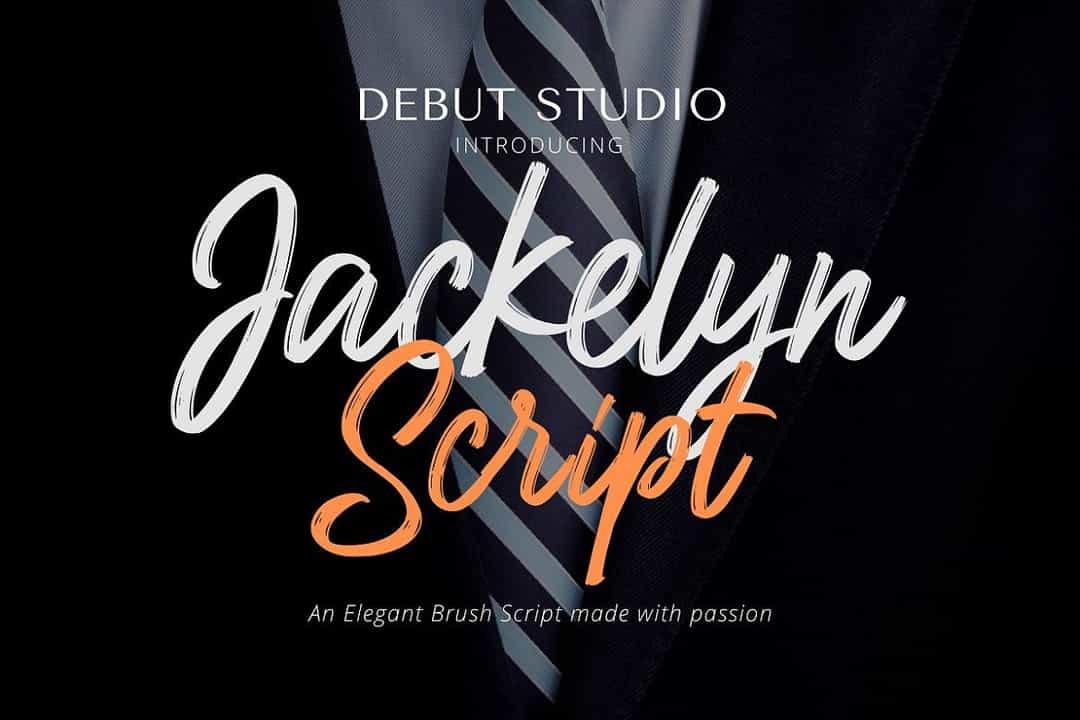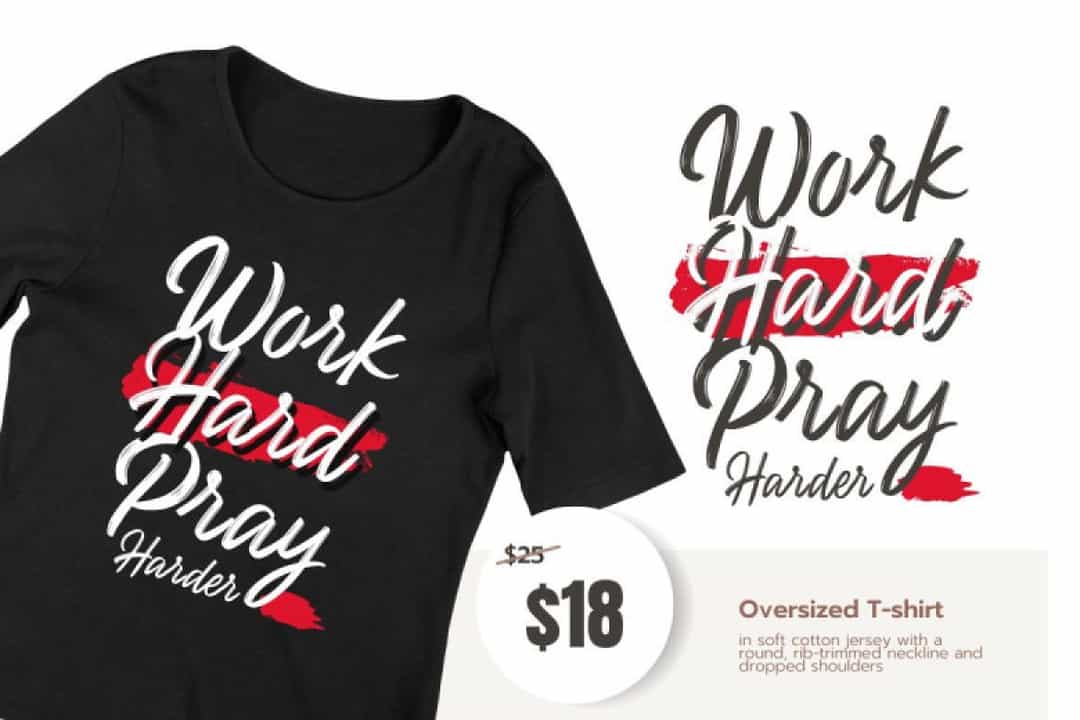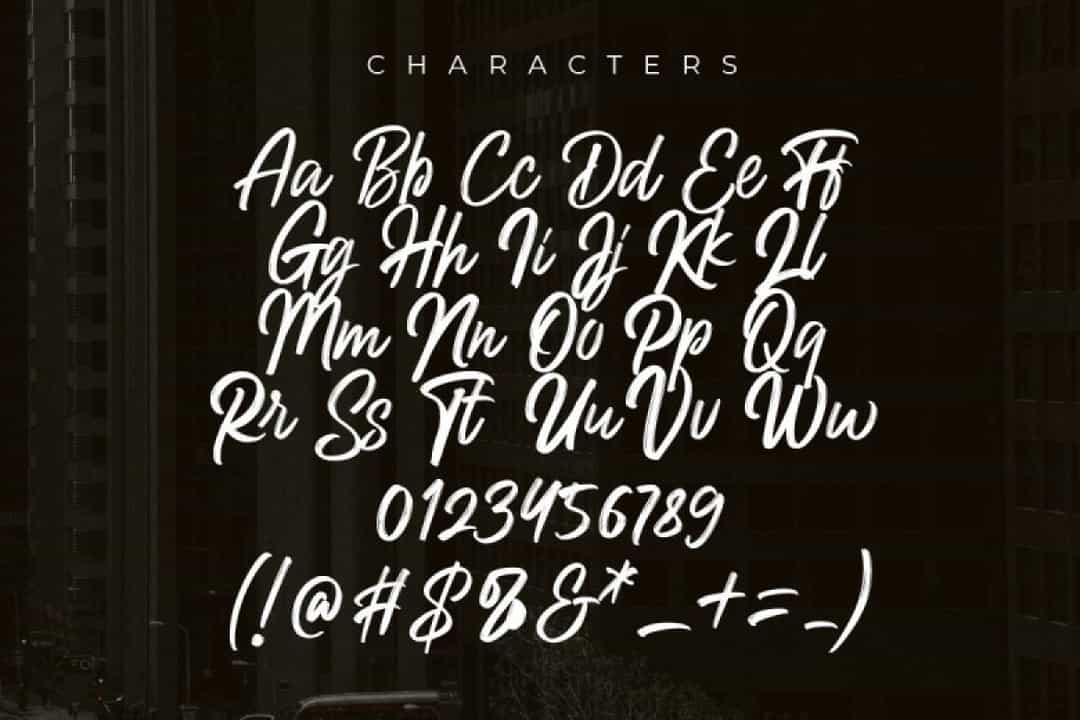
Discover Jackelyn Script Font, part of the Brush collection—a versatile and unique font perfect for adding a personal touch to your projects. Download it for free and enjoy crafting designs with style, from invitations to social media posts. This font is available exclusively for personal use, giving you the freedom to create without limits. Unlock your creativity with Jackelyn Script Font today!
Jackelyn Script is an exciting handmade brush script font designed to meet all your creative needs, be it Instagram captions or calligraphy projects at home. No matter the scale of your creative visions – Jackelyn Script will help turn them into works of art!